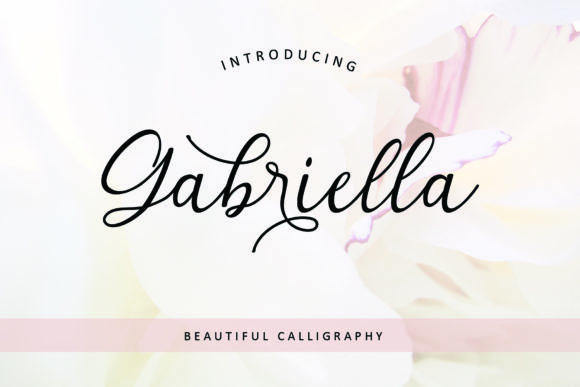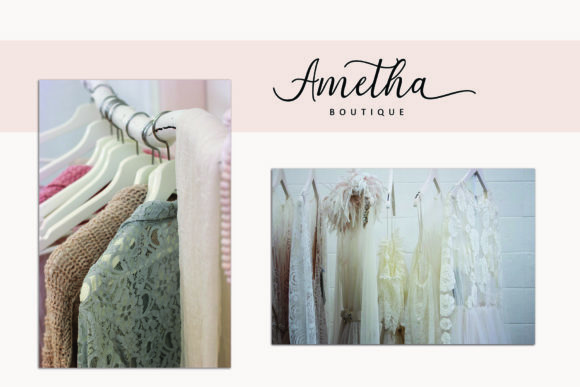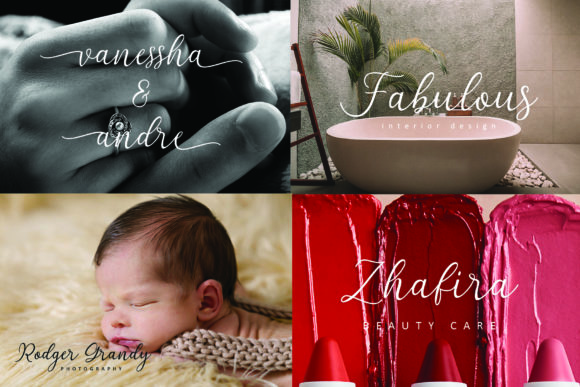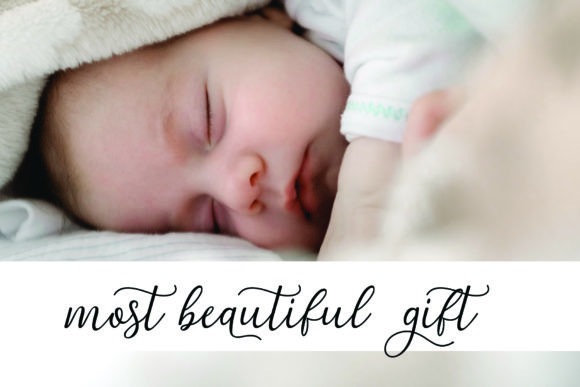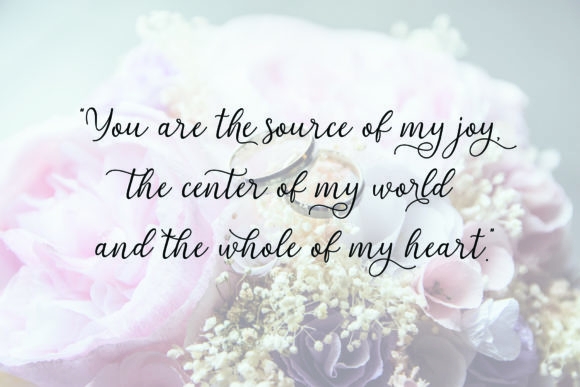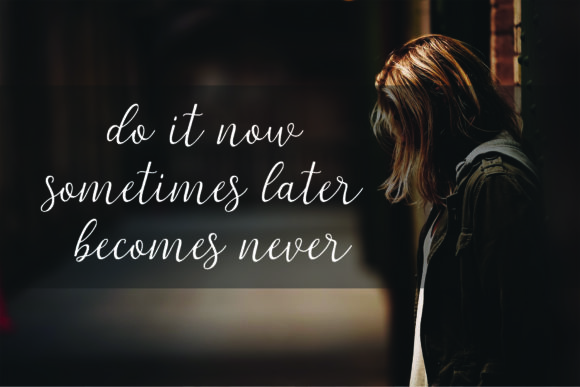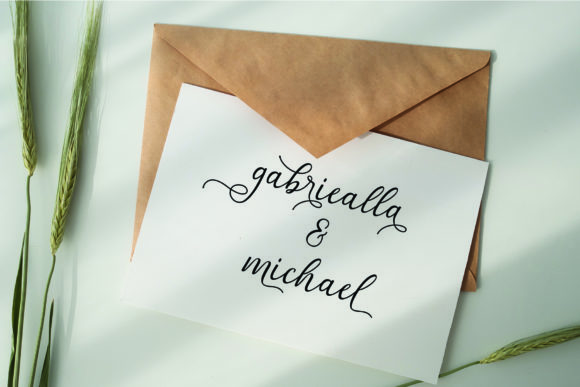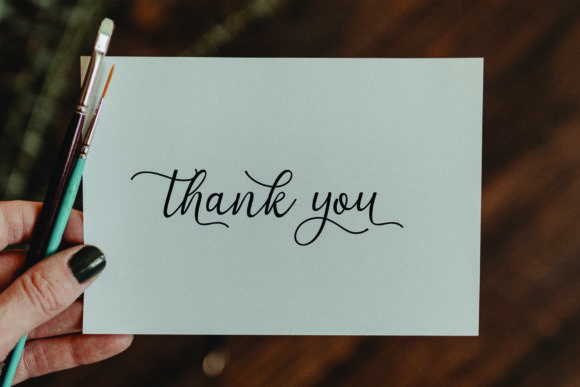
Gabriella Font
About Gabriella Font
Gabriella is a romantic font. Its amazing alternatives and swashes will add an elegant and luxurious touch to your designs.